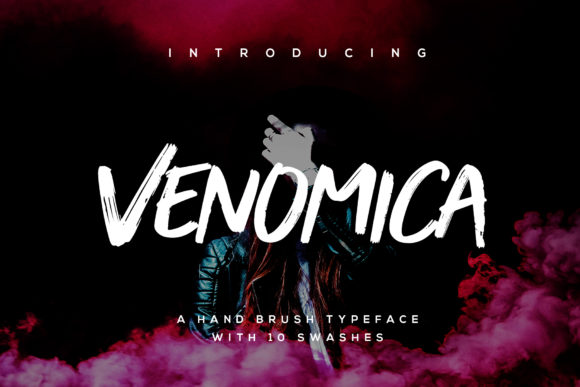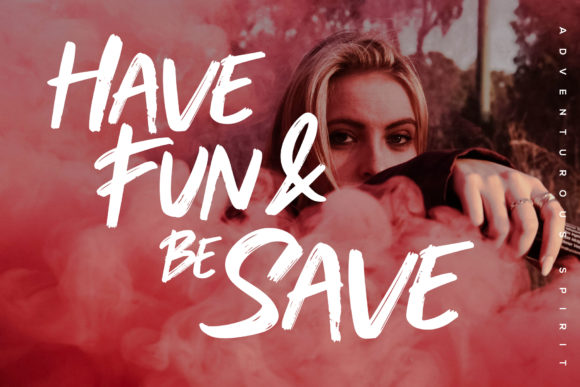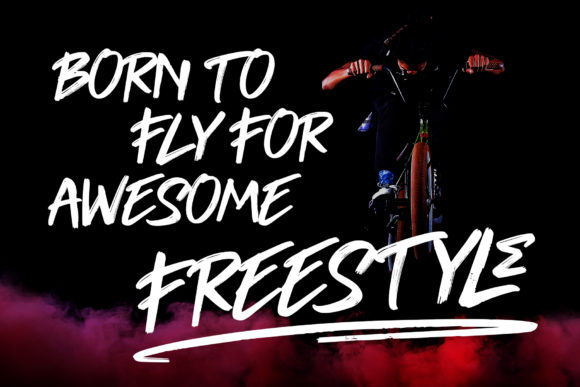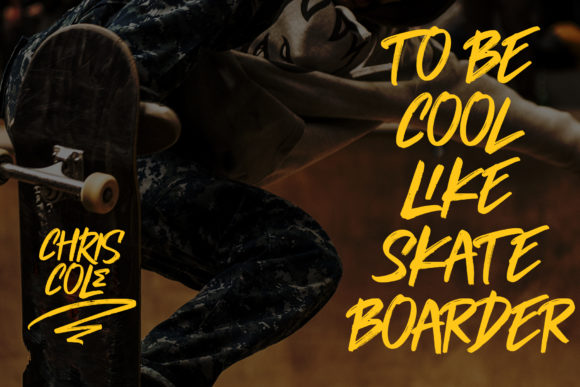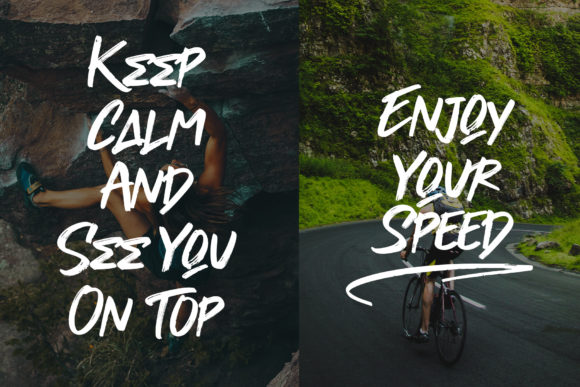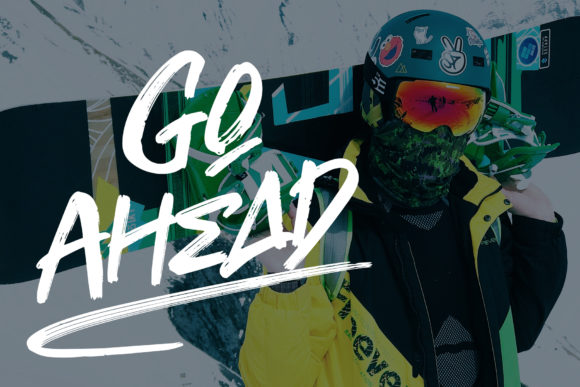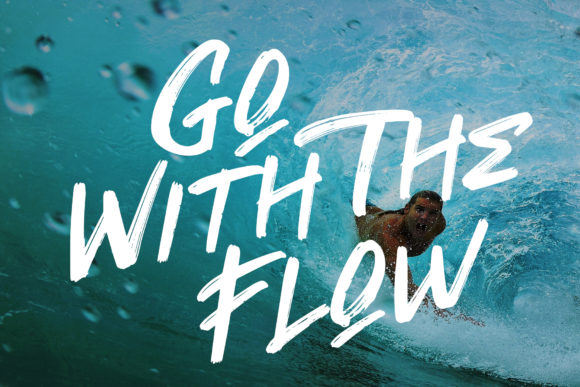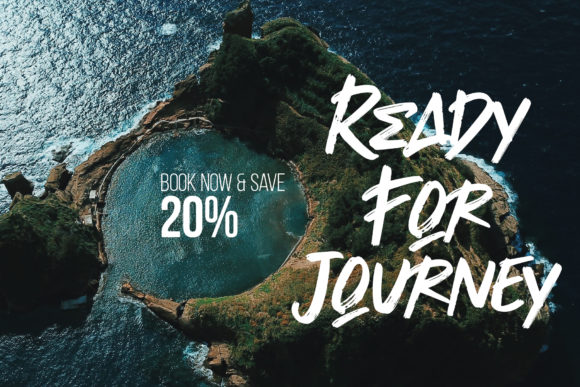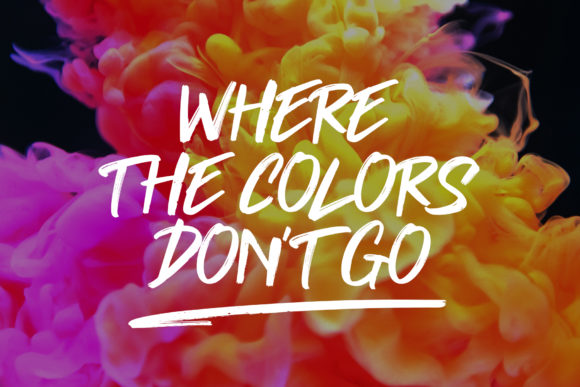
HomeScript FontsVenomica Font Script Fonts Venomica Font FacebookXPinterestWhatsApp Venomica Font Poster 2 Venomica Font Poster 3 Venomica Font Poster 4 Venomica Font Poster 5 Venomica Font Poster 6 Venomica Font Poster 7 Venomica Font Poster 8 Venomica Font Poster 9 About Venomica Font Venomica is a bold and fun script font with a bold vibe. Use it to add a unique charm to any design project! DOWNLOAD ON CREATIVE FABRICAThis font is sold and delivered by Creative Fabrica. Font Canyon may earn a commission if you buy through this link. People also explored Kick Point Brush Font Mellitta Script Font Ornella Semi-Bold Font Montero Font Beanstalker Rainbow Kid Font Aukarin Font Fonjava Font Hot Like Hell Font 302 0 TagsVenomica Font Previous articleOuthentape FontNext articleSufhia Font LEAVE A REPLY Cancel reply Comment: Please enter your comment! Name:* Please enter your name here Email:* You have entered an incorrect email address! Please enter your email address here Website: Save my name, email, and website in this browser for the next time I comment. Personal Use Free Gagalin Personal Use Free Read more about this font Konexio Personal Use Free Read more about this font Mullia Personal Use Free Read more about this font Kinda Sweet Personal Use Free Read more about this font BLOG Free vs Paid Fonts: Why Investing in Premium Fonts Is Worth It Free vs Paid Fonts: Why Premium Fonts Are Worth It in 2025 The debate of free vs paid fonts continues in the design world. While... Exploring Font Trends 5 Fonts That Will Dominate Design Trends in 2026 Best Fonts for YouTube Videos: Make Your Thumbnails Stand Out